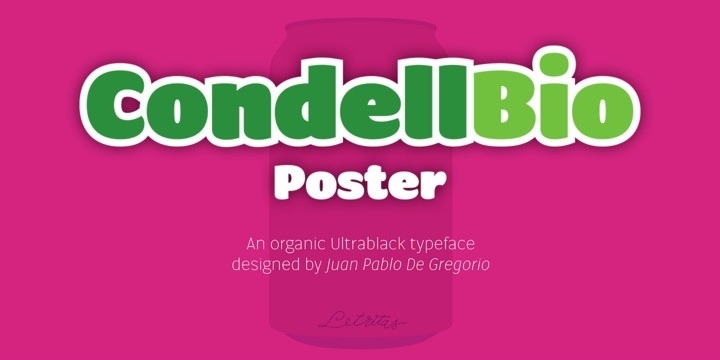
Condell Bio Poster Font
Condell Bio Poster Font is perfect for environmental poster campaigns, organic product packaging, sustainable lifestyle marketing, eco-friendly festival promotions, biological research presentations, natural science museums, green technology branding, and environmental awareness materials. This organic typeface excels in applications where environmental consciousness and biological authenticity are essential for creating impactful and meaningful brand experiences that celebrate the interconnectedness of life and nature.
What makes Condell Bio Poster Font truly exciting is its innovative embodiment of biological systems and ecological design principles that captures the organic complexity of living organisms and the sustainable patterns found throughout the natural world. The font features flowing, bio-inspired letterforms with organic curves and cellular character details that mirror the growth patterns of plants and the systematic organization of biological structures. Its ecological personality and life-centered character create an immediate sense of environmental harmony and scientific authenticity that resonates with audiences seeking genuine connections to nature and sustainable living solutions. The typeface's biological heritage and environmental appeal make it perfect for brands wanting to convey sustainability, scientific credibility, and connection to the vital systems that sustain all life on Earth.
The Condell Bio Poster Font family includes regular and organic variations, complemented by bio-inspired alternates and ecological decorative elements. The font offers comprehensive character sets with scientific symbols, biological indicators, and environmental styling details that enhance its natural aesthetic. Additional graphic elements including cellular patterns, organic motifs, biological ornaments, and ecological flourishes provide designers with complete branding tools rooted in biological science and environmental sustainability principles.
For designers seeking an authentic bio-inspired typeface, Condell Bio Poster Font Free Download represents an exceptional choice that brings ecological authenticity to contemporary brand communications. Whether you're creating identities for environmental organizations, designing materials for sustainable product companies, or developing marketing campaigns for green technology firms, this font delivers the scientific credibility that appeals to environmentally conscious audiences and sustainability advocates. Its biological character and ecological appeal make it particularly effective for brands in environmental science, sustainable technology, and green living industries. The font's ability to evoke feelings of natural harmony, scientific understanding, and environmental responsibility makes it an invaluable asset for creating brand communications that celebrate biological diversity, environmental sustainability, and the essential connection between human activity and natural systems in building a more sustainable future for all living beings.